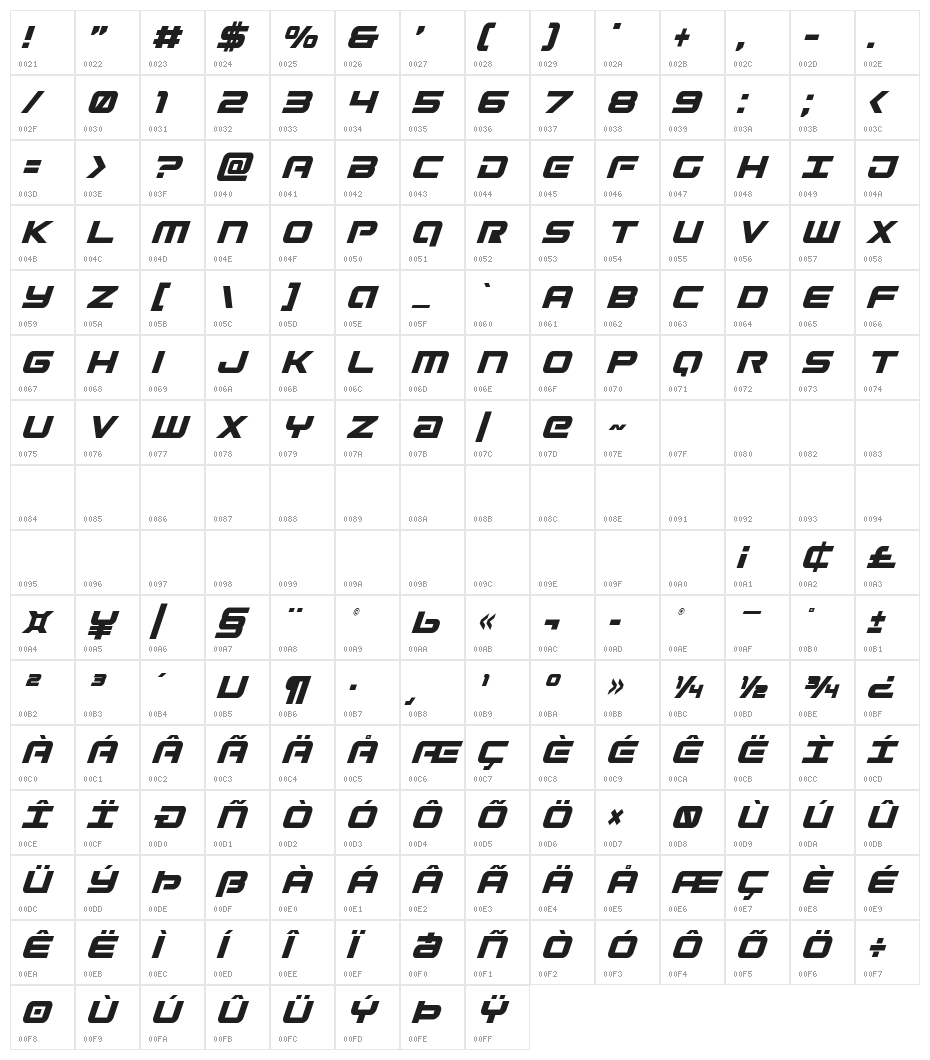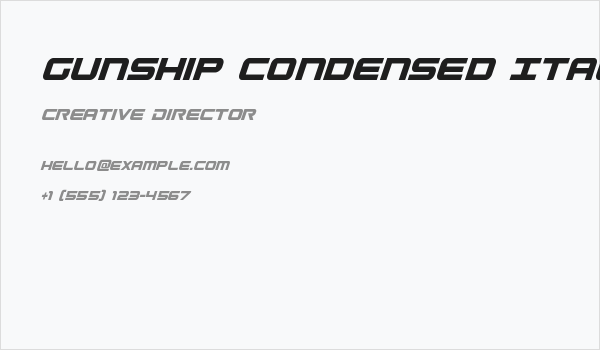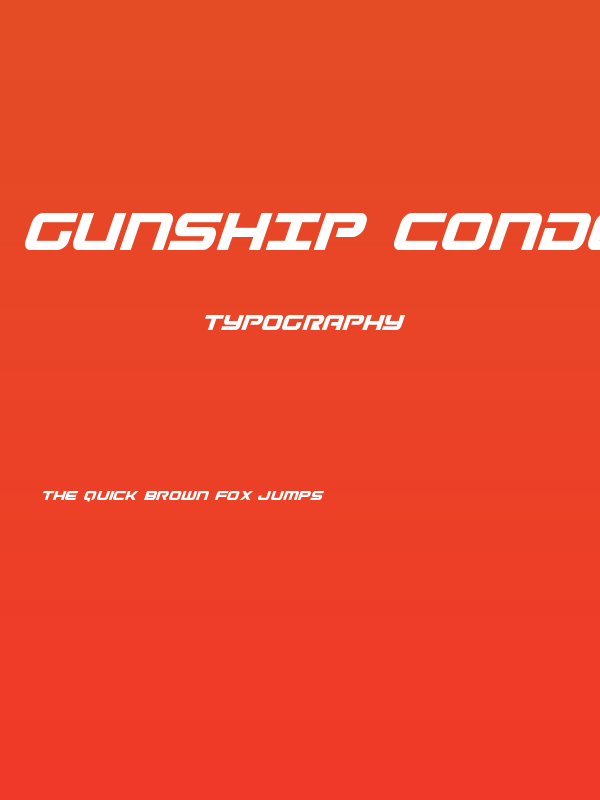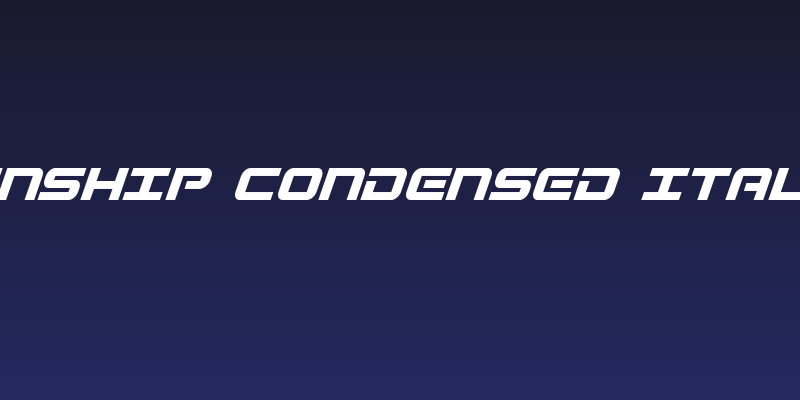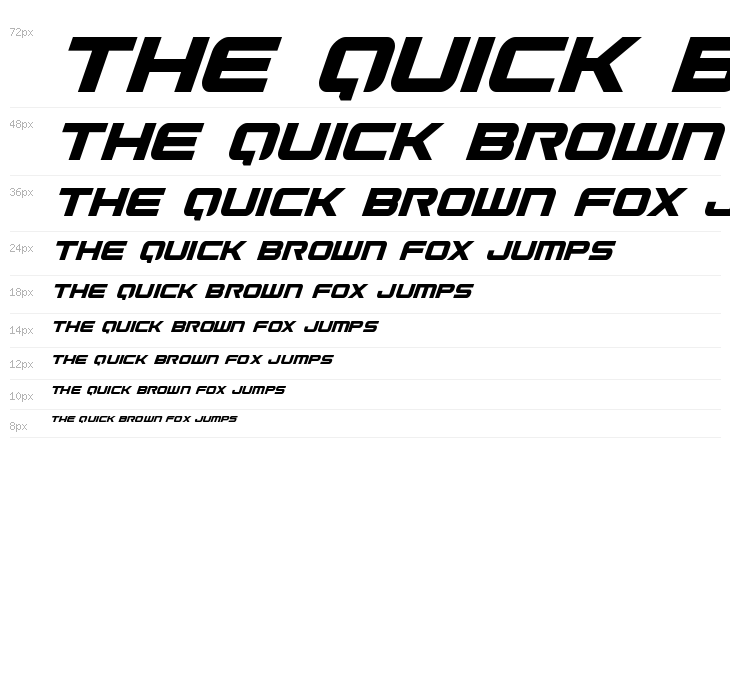
Gunship Condensed Italic Font
Gunship Condensed Italic Description
This font features a sleek, futuristic design with a condensed and italicized style. The characters are bold and angular, giving a sense of speed and modernity. The strokes are consistent in thickness, providing a uniform appearance across all characters. The slanted orientation adds a dynamic feel, making it suitable for projects that require a sense of motion or forward-thinking aesthetics. The font includes a full set of uppercase and lowercase letters, numbers, and a variety of special characters, ensuring versatility in usage.
| Proposed Projects | Ideal for technology branding, sci-fi themed projects, video game titles, and modern advertising. |